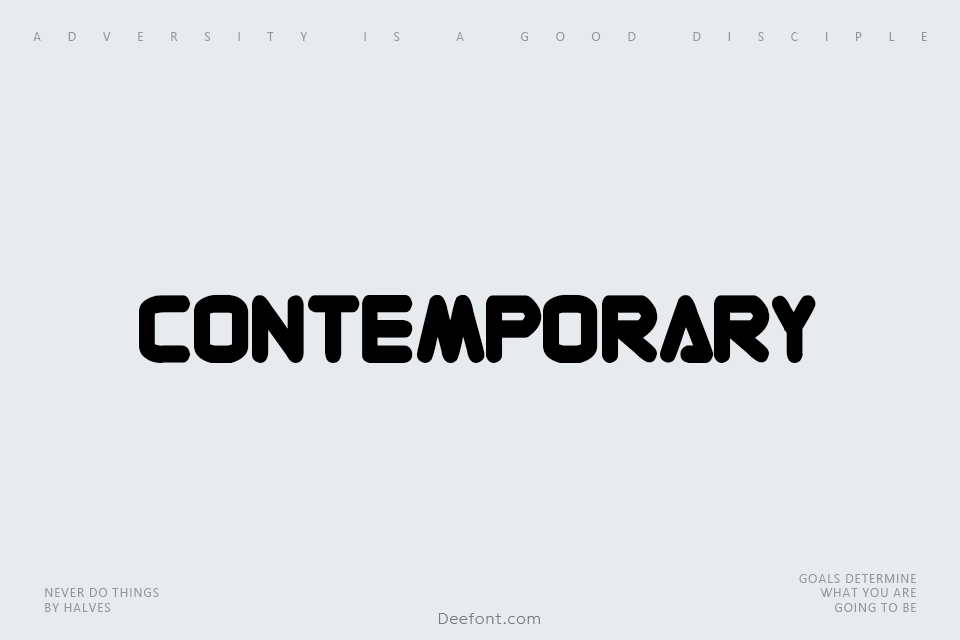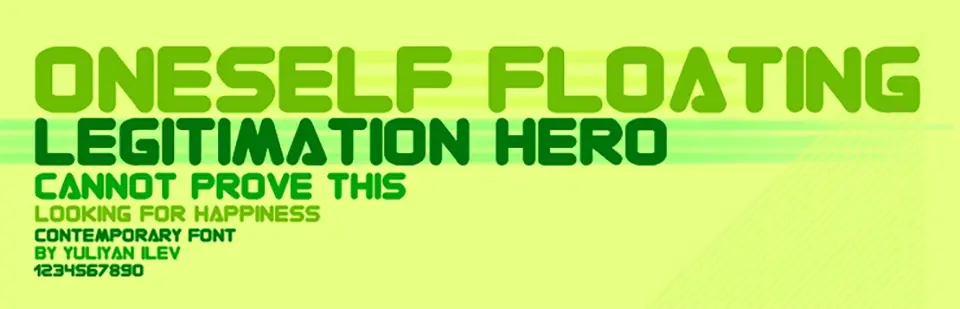
Contemporary Font
Contemporary ONE is a striking display font that embodies modern techno aesthetics with geometric precision and bold letterforms. Designed for maximum visual impact, this versatile typeface excels in branding, logos, titles, and social media designs. With its clean lines and contemporary edge, it delivers a sophisticated yet dynamic appearance perfect for any project requiring a modern, high-tech aesthetic that stands out with clarity and professional polish.